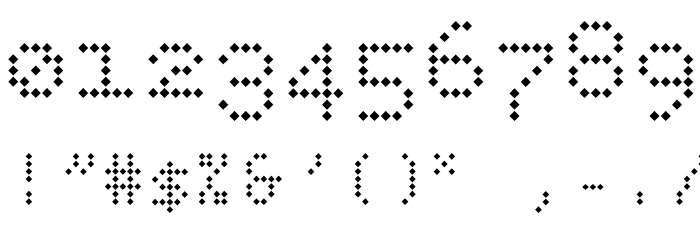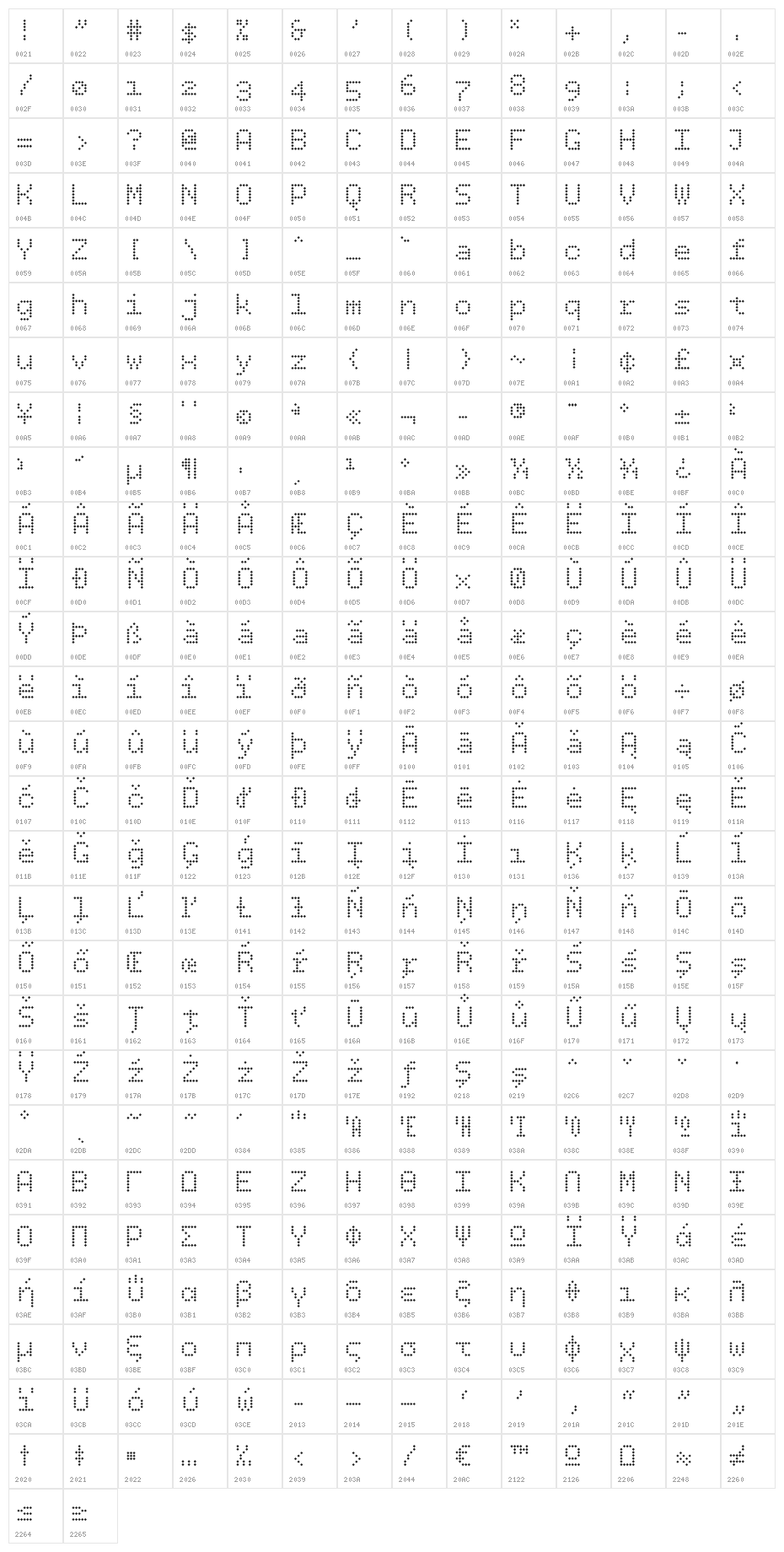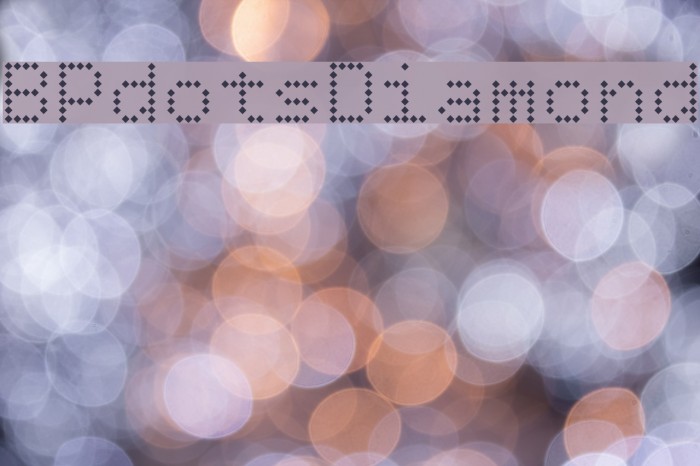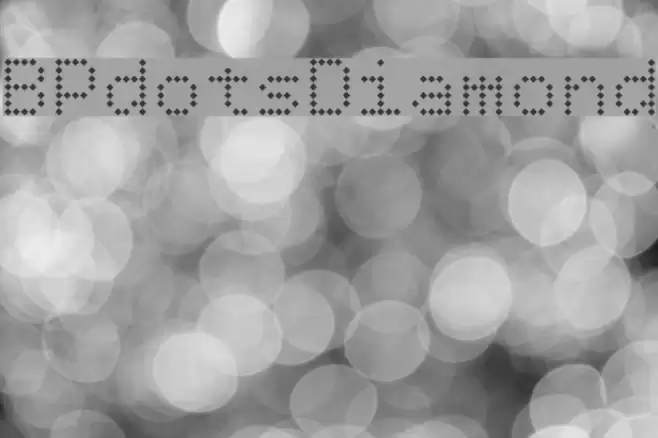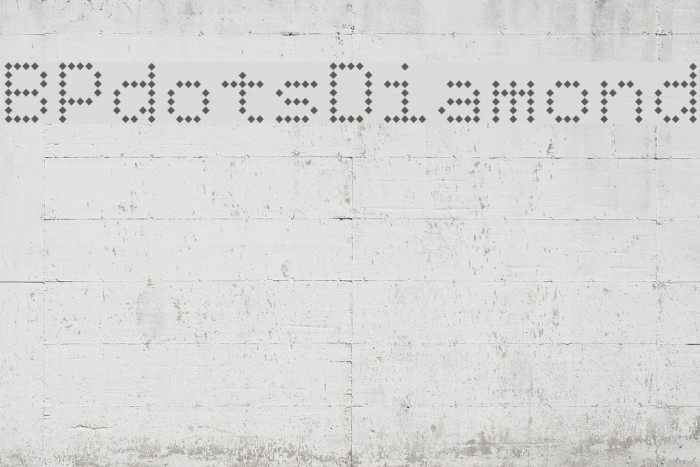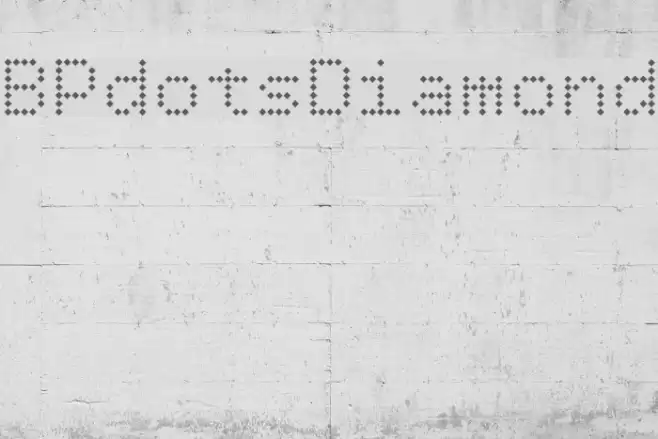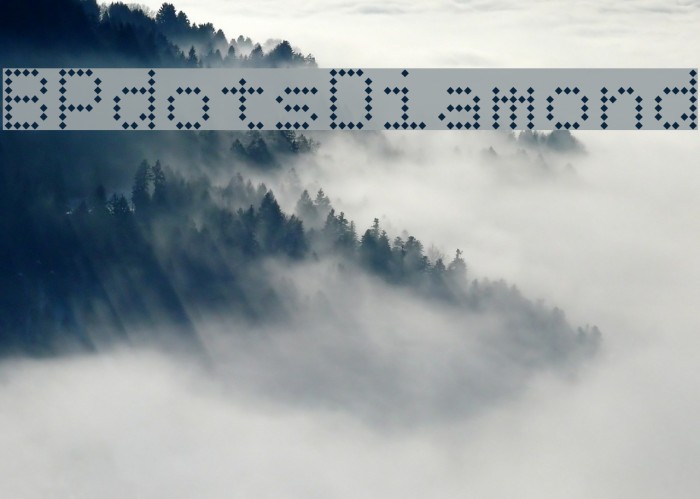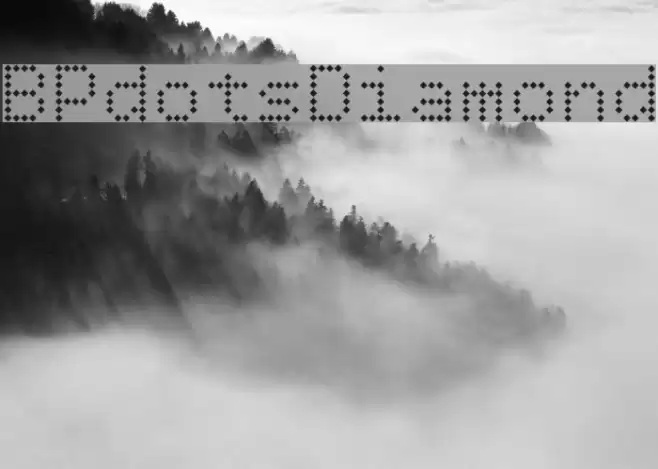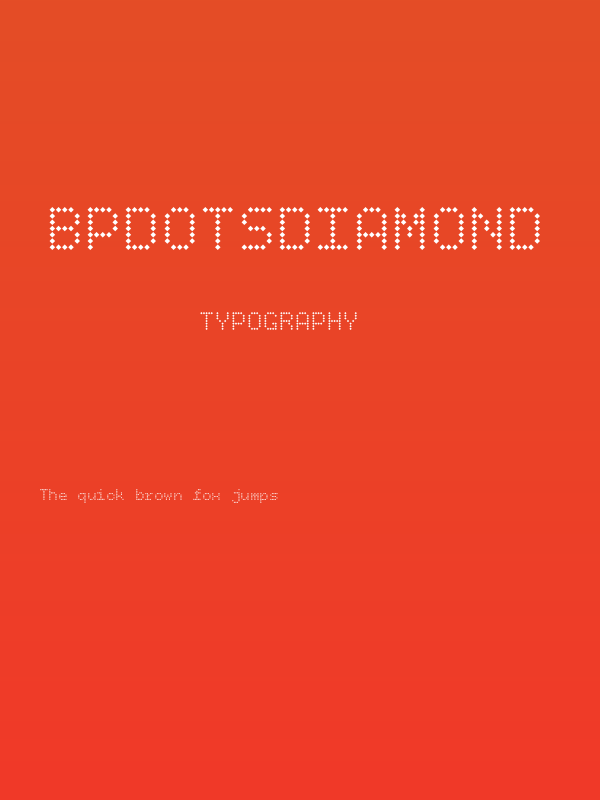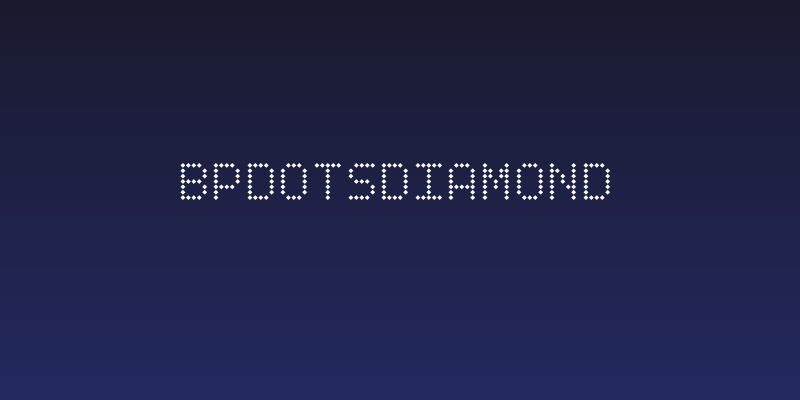
BPdotsDiamond Font
BPdotsDiamond Description
This font features a unique design where each character is composed of small diamond-shaped dots, creating a pixelated and digital aesthetic. The uppercase and lowercase letters maintain a consistent style, with clear geometric forms that are both modern and playful. The numbers and special characters follow the same dotted pattern, ensuring uniformity across the entire typeface. This font's distinct appearance makes it stand out, offering a retro yet futuristic vibe that is reminiscent of early digital displays or LED screens.
| Use Case | Headlines, Logos, Digital Art |
| Proposed Projects | Ideal for digital art projects, retro-themed designs, tech-oriented branding, or any creative work that requires a unique, eye-catching typeface. |